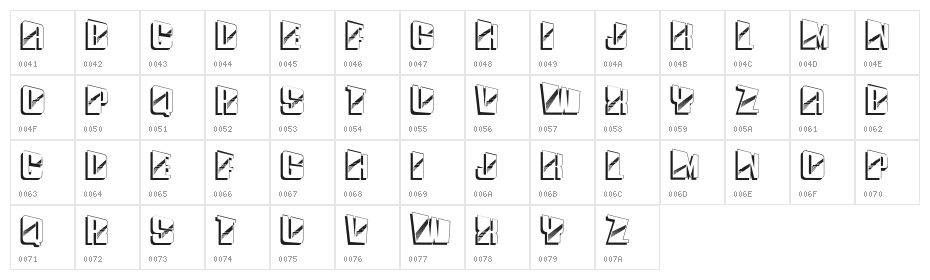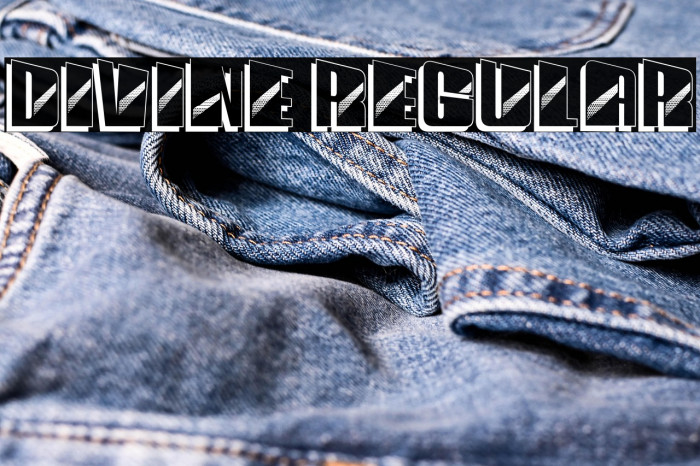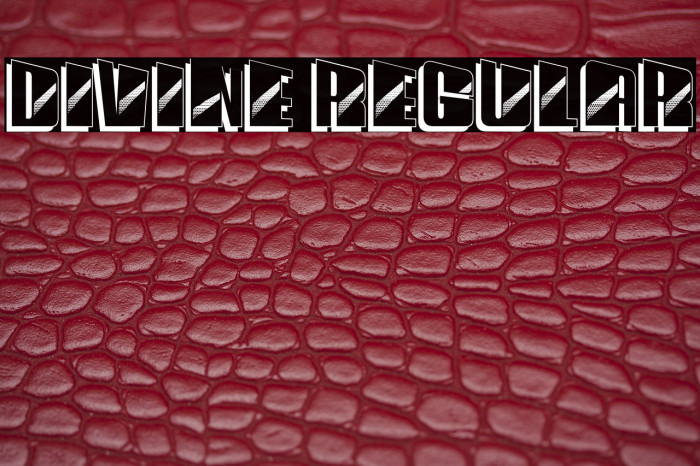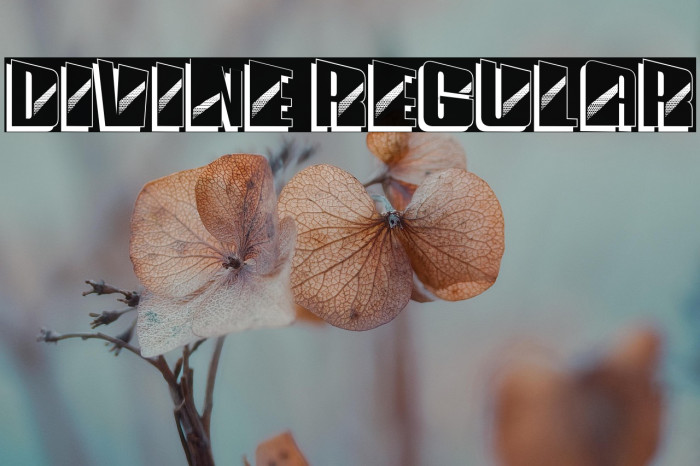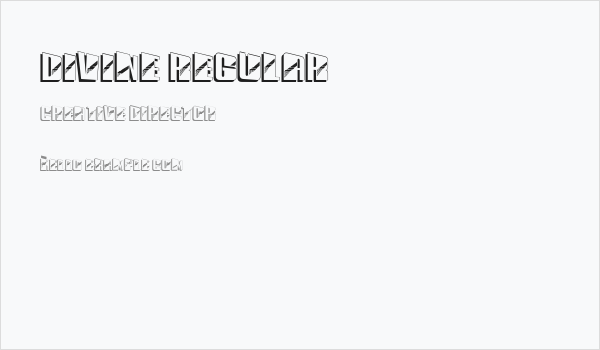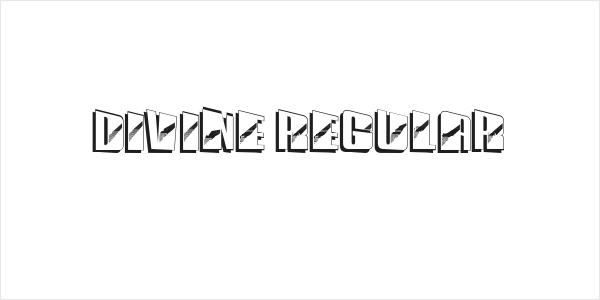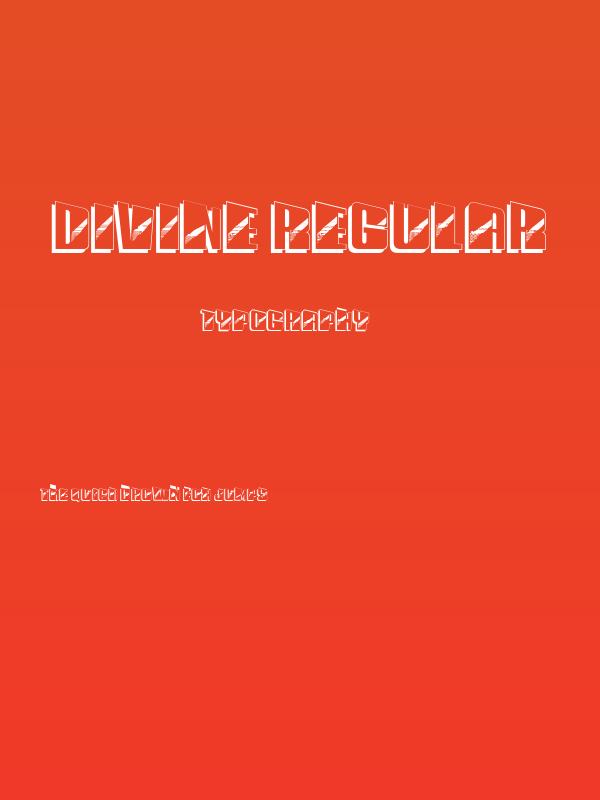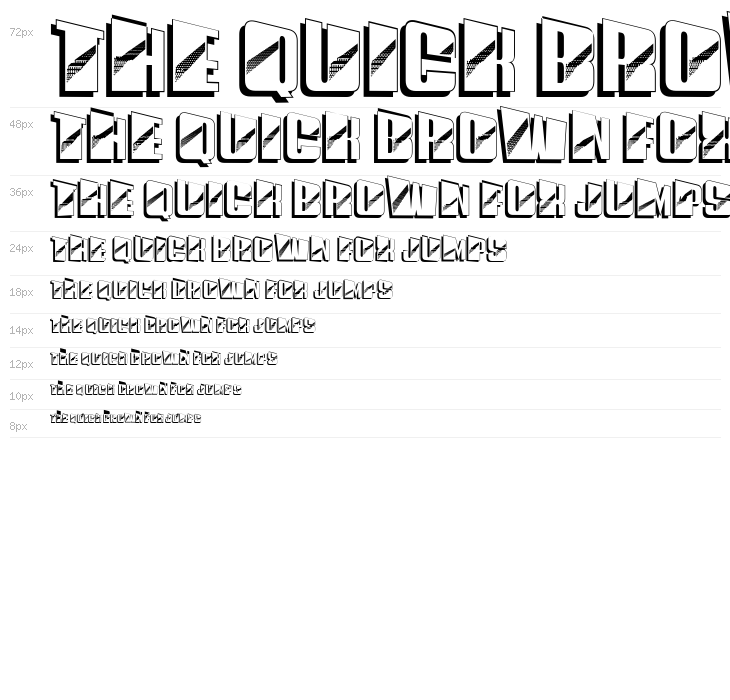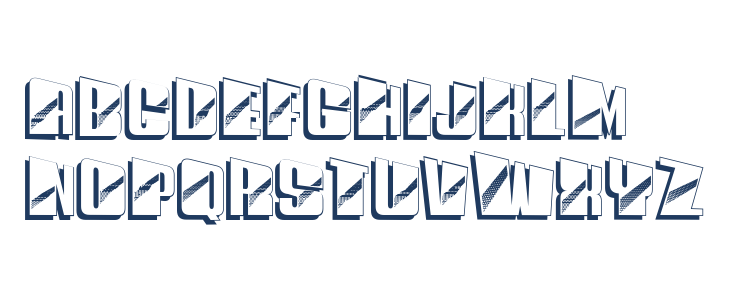
Divine Regular Font
Divine Regular Description
This font features a bold and dynamic 3D effect with a shadow that gives each character a sense of depth and dimension. The letters are uppercase and have a distinct geometric style, with sharp angles and clean lines. The interior of each letter is filled with a dotted pattern, adding texture and visual interest. The font's overall appearance is modern and eye-catching, making it suitable for projects that require a strong visual impact. The spacing between characters is consistent, allowing for easy readability despite the complex design.
| Proposed Projects | Ideal for posters, headlines, branding, and any design requiring a striking and modern look. |